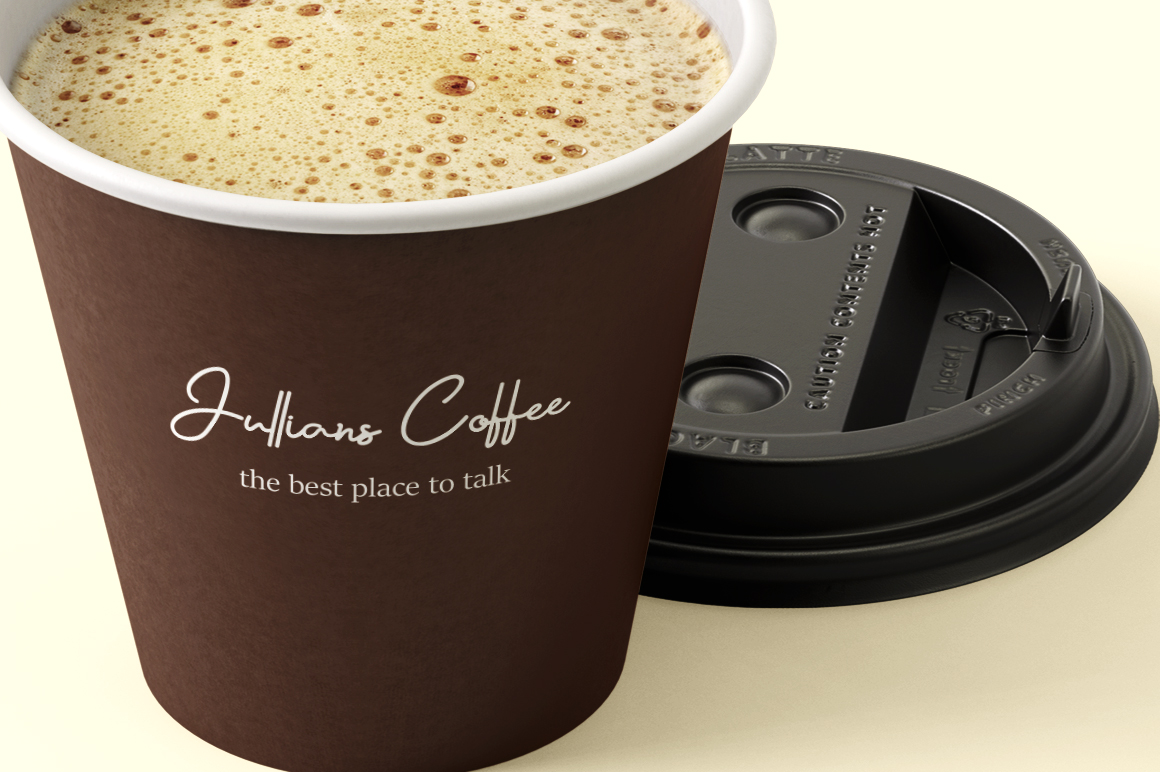
Malleo Font
Malleo Handwritten Font
It’s a modern and stylish handwritten font. Whether you’re using it for an invitation, digital design, presentation, calligraphy, scripts, or making greeting cards, this font has the potential to become your favorite go-to font, no matter the occasion!